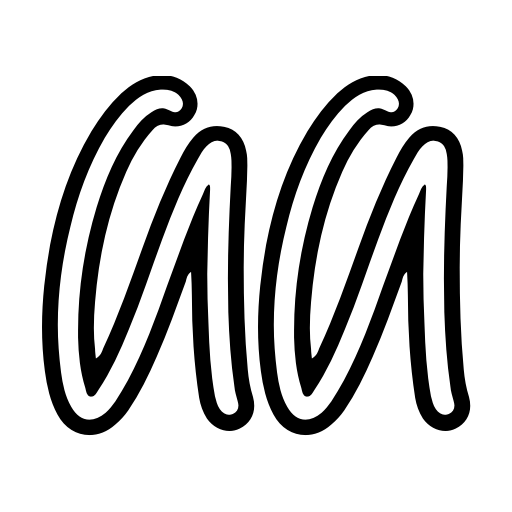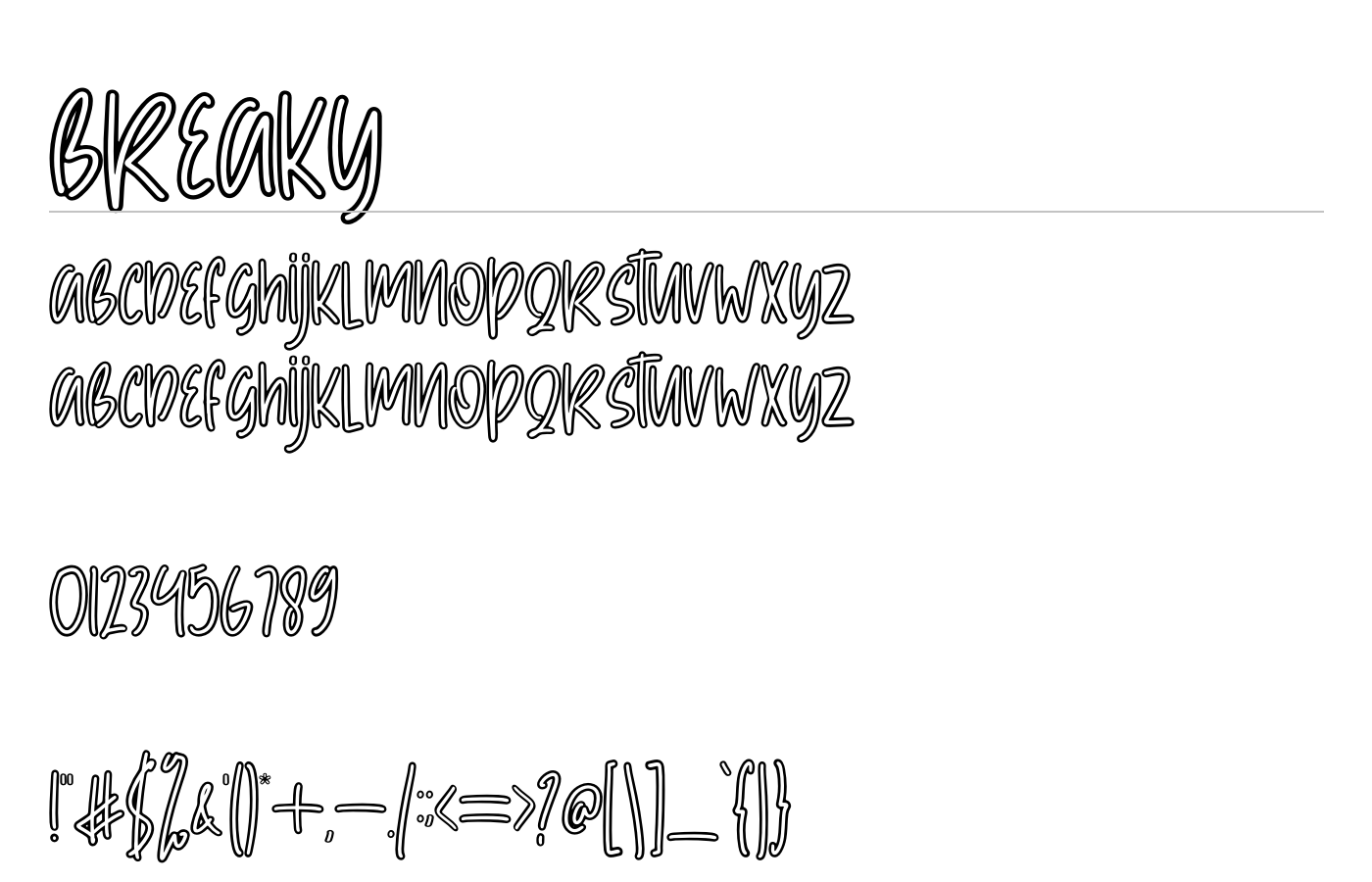
Breaky Font is a playful, hand-drawn script style with a casual and friendly vibe, featuring irregular, slightly bouncy letterforms with a textured, outlined look. Its narrow width and lively shapes make it perfect for creative, informal designs such as logos, posters, or packaging where a fun, approachable personality is desired. This font works best in display settings, adding a unique, energetic touch to projects that want to stand out with charm and character.
Breaky Font
About Breaky Font